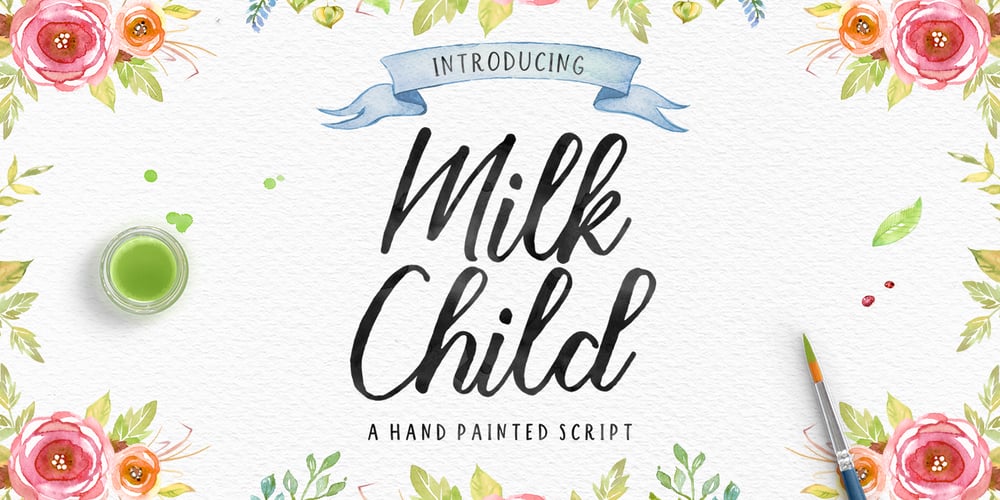
Milk Child Font Family was designed by Hafis Hidayat and published by HafisHidayat. Milk Child contains 1 styles and family package options. Milk Child is an organic, energetic, dynamic and modern handwriting script that can be used for various purposes, such as with titles, correspondence, wedding invitations, letterheads, signage, labels, signature newsletters, logos, posters, badges, and more.